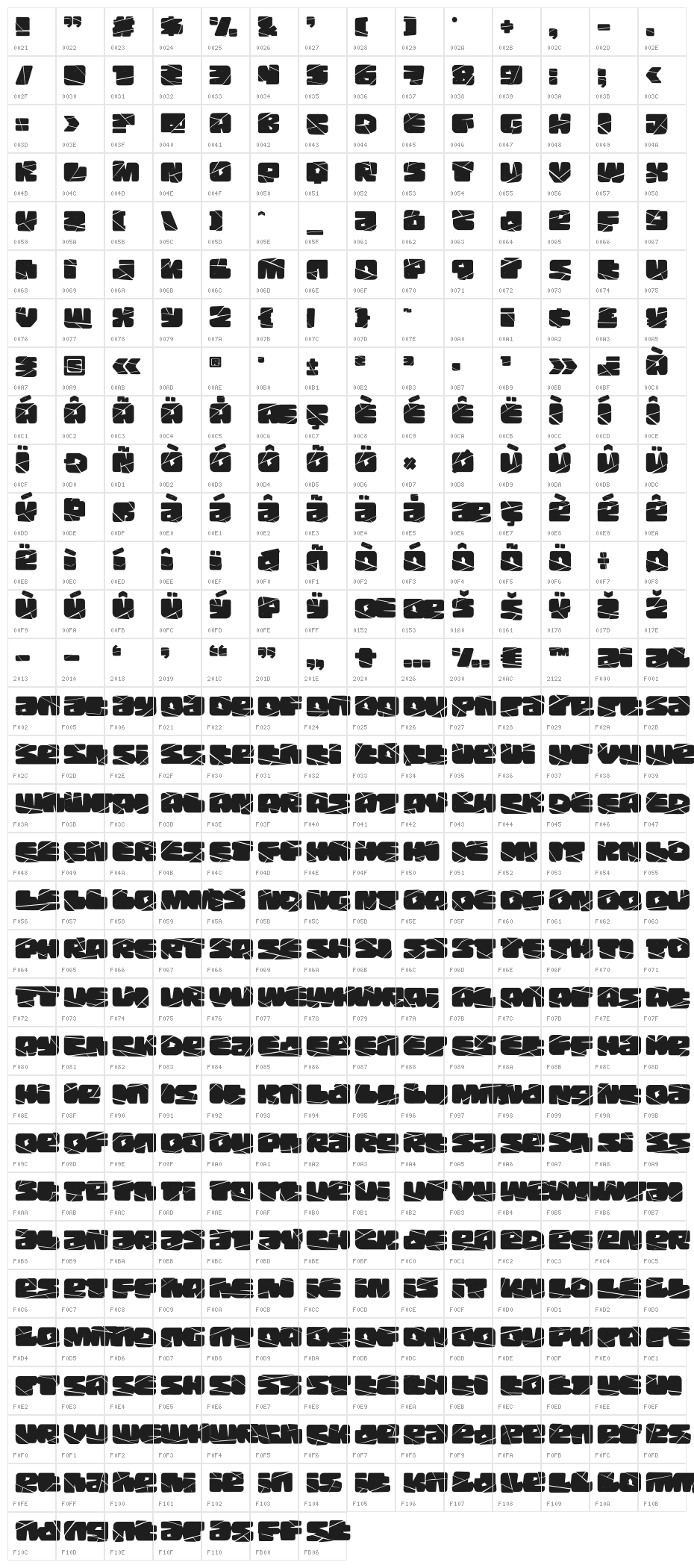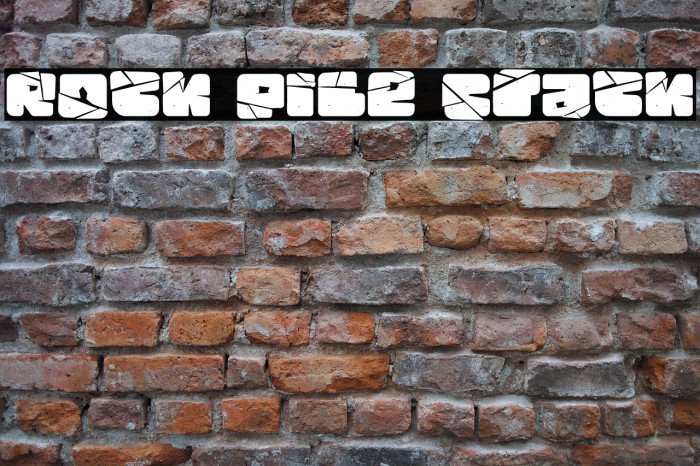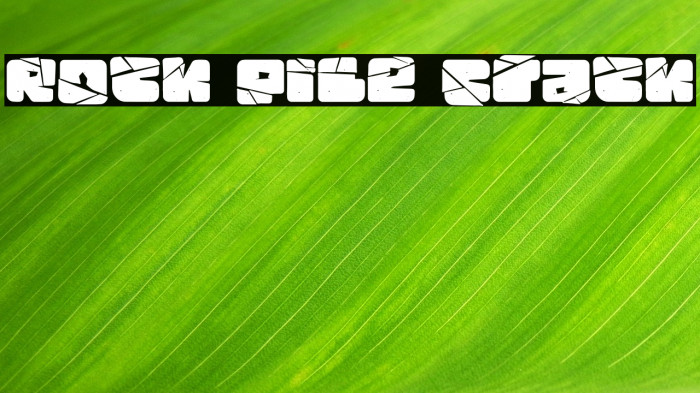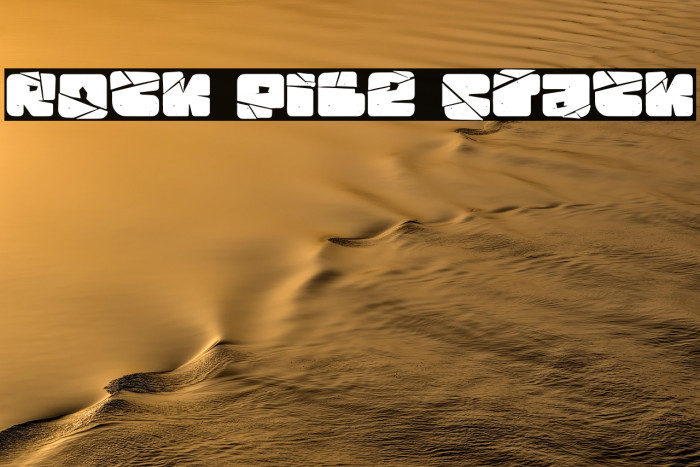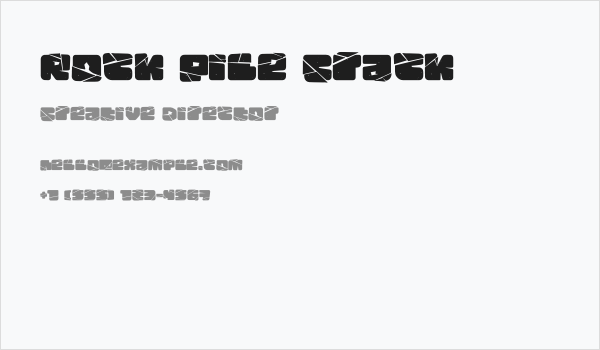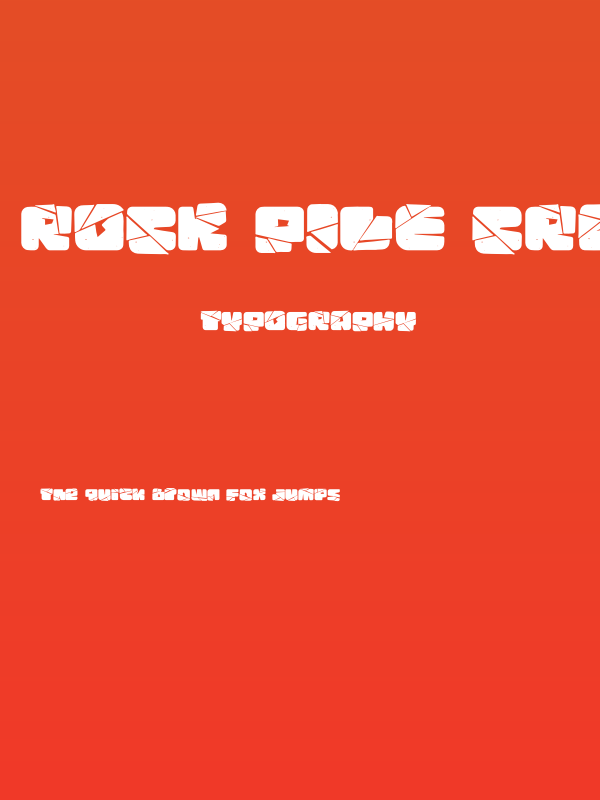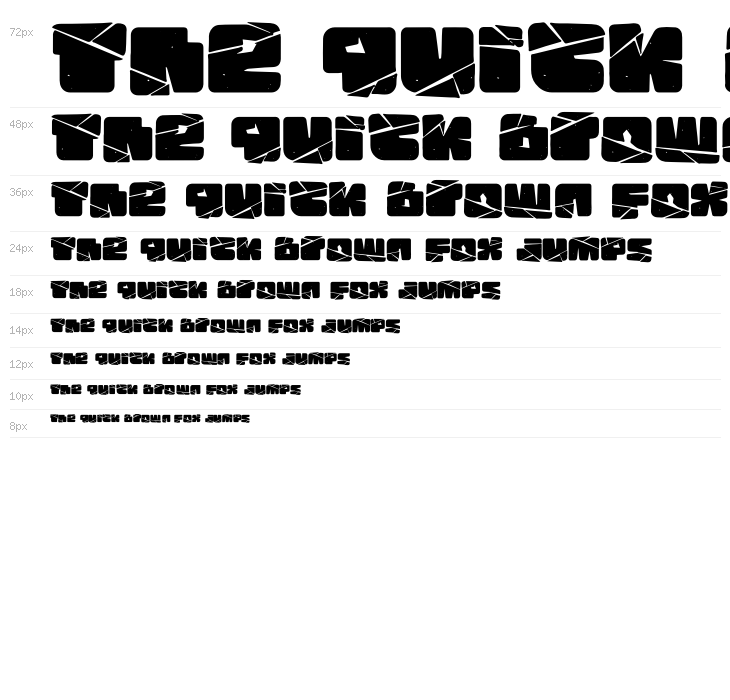
Rock Pile Crack Font
Rock Pile Crack Description
This font features a bold, geometric style with a cracked, fragmented appearance. Each character is designed to look as if it's made from shattered pieces, giving it a rugged and edgy feel. The boldness of the letters makes them stand out, while the unique crack patterns add a layer of complexity and visual interest. This font is ideal for projects that require a strong, impactful look with a touch of grunge or industrial aesthetic. The characters are uniformly wide, maintaining a consistent visual weight across the alphabet and numerals.
| Overall Style | Modern, Edgy |
| Proposed Projects | Ideal for album covers, posters, video game graphics, or any project needing a bold, edgy aesthetic. |